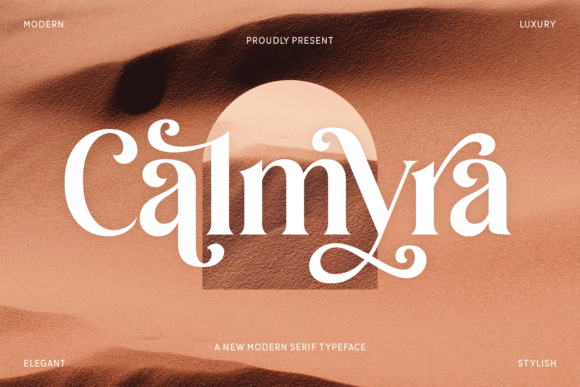
The Designer’s Dream Font: Calmyra
I still remember the design project that led me to discover Calmyra. I was working on a luxury branding campaign for a high-end fashion client, and I was struggling to find the perfect font that exuded sophistication and elegance. The client wanted a font that would make their brand stand out, but still convey a sense of timelessness and refinement. After hours of scouring font libraries and testing various typefaces, I stumbled upon Calmyra – and it was love at first sight! 💫
What Makes Calmyra Special?
Calmyra is a luxurious modern serif font that radiates sophistication and creativity. With its ornate swashes, elegant ligatures, and refined letterforms, Calmyra strikes the perfect balance between classic beauty and contemporary flair. This typeface is ideal for upscale branding, fashion editorials, wedding designs, and packaging, bringing timeless charm and artistic detail to any visual project.
- ✨ Elegant and refined letterforms that add a touch of sophistication to any design
- ✅ Extensive range of OpenType features, including ligatures, swashes, and stylistic alternates
- 💫 Perfect for luxury branding, fashion editorials, and high-end packaging
- 🎨 Highly versatile and can be used for both digital and print projects
- 🤔 Some users may find the font a bit challenging to read at smaller sizes due to its ornate features
- ⚠️ Limited availability of condensed or italic styles, which may limit its use in certain design contexts
Calmyra was designed with the goal of creating a luxurious and sophisticated typeface that would cater to the needs of designers and creative professionals. The font’s creator drew inspiration from classic serif fonts, while incorporating modern elements and features to make it more versatile and elegant. The result is a font that exudes refinement, elegance, and sophistication, making it perfect for high-end branding, fashion editorials, and luxury packaging.
Q: What is Calmyra’s primary use case?
A: Calmyra is ideal for upscale branding, fashion editorials, wedding designs, and packaging, where a touch of luxury and sophistication is desired.
Q: Does Calmyra support OpenType features?
A: Yes, Calmyra supports a range of OpenType features, including ligatures, swashes, and stylistic alternates, which can be accessed in compatible design software.
Q: Can I use Calmyra for both digital and print projects?
A: Yes, Calmyra is highly versatile and can be used for both digital and print projects, including branding, advertising, and editorial design.
Q: Is Calmyra easy to read at smaller sizes?
A: While Calmyra is a beautiful font, its ornate features may make it challenging to read at smaller sizes. It’s best used at larger sizes or for display purposes.